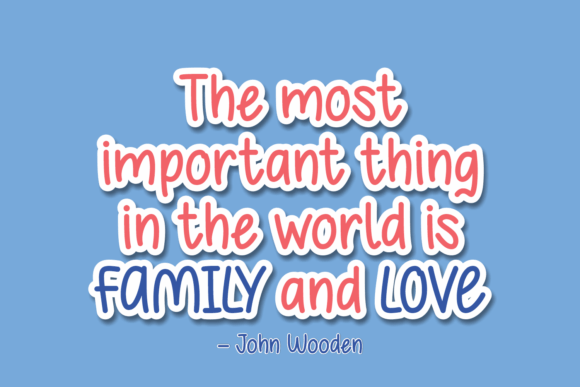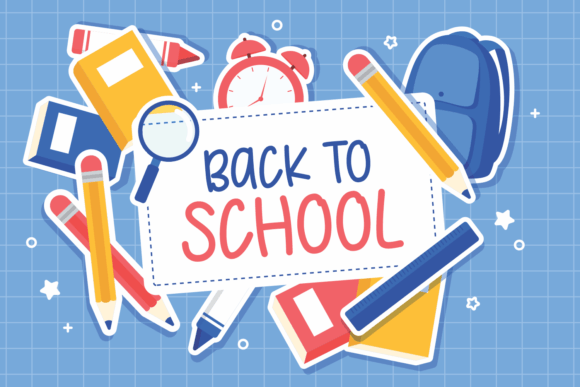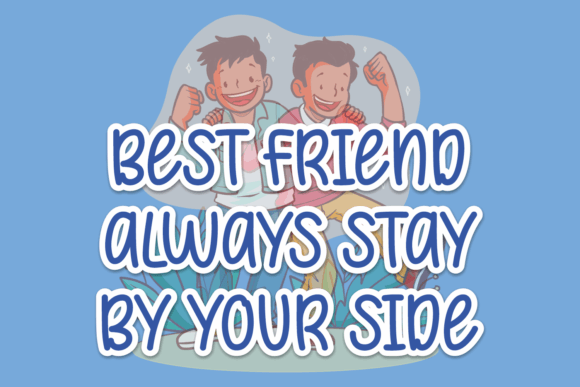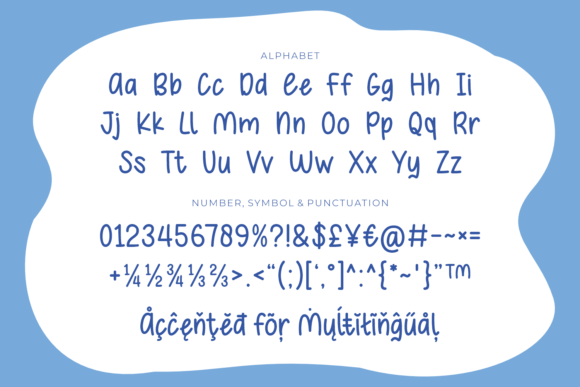
Introducing Family Creative Font: The Perfect Blend of Minimalism and Handwritten Charm
In the world of typography, fonts play a crucial role in conveying the tone and personality of a brand, product, or message. For designers and crafters, finding the right font can make all the difference in creating visually appealing and effective designs. If you’re on the hunt for a font that exudes simplicity, modernity, and a touch of handwriting charm, look no further than Family Creative Font.
What is Family Creative Font?
Family Creative is a minimalist handwritten font that boasts clean, simple lines and a casual, modern feel. Its design strikes the perfect balance between simplicity and the natural flow of handwriting, making it an excellent choice for a wide range of projects. Whether you’re working on branding, social media graphics, invitations, logos, or everyday print materials, Family Creative Font is sure to impress.
Key Characteristics of Family Creative Font
- Minimalist Design: Family Creative Font features a clean and minimalist design that ensures clarity and readability, even at smaller font sizes.
- Handwritten Charm: Despite its minimalist approach, the font retains the natural flow and charm of handwriting, adding a personal touch to your designs.
- Modern Aesthetic: The font’s modern, clean aesthetic makes it suitable for both professional and creative contexts, allowing you to convey a sense of sophistication and style.
- Versatility: Family Creative Font is incredibly versatile and can be used across various projects, from digital applications to print materials.
Why Choose Family Creative Font?
There are several reasons why Family Creative Font stands out from the crowd:
- Ease of Readability: The font’s simple and clean design ensures that your text is easy to read, making it perfect for body text, headings, and titles.
- Unique Personality: Family Creative Font adds a unique personality to your designs, setting them apart from more traditional and generic fonts.
- Time-Saving: With its minimalist design, Family Creative Font allows you to create professional-looking designs quickly and efficiently, saving you time and effort.
How to Use Family Creative Font in Your Designs
Family Creative Font is an incredibly versatile font that can be used in a variety of design projects:
- Branding: Use Family Creative Font to create a unique and memorable brand identity that reflects your values and personality.
- Social Media Graphics: Add a personal touch to your social media graphics, such as Instagram posts, Facebook headers, and Twitter graphics.
- Invitations: Create beautiful and elegant invitations for special occasions, such as weddings, birthdays, and baby showers.
- Logos: Use Family Creative Font to create a modern and stylish logo that represents your brand or business.
- Print Materials: Add a touch of elegance to your everyday print materials, such as brochures, flyers, and business cards.
Family Creative Font is an excellent choice for designers and crafters looking for a font that combines minimalism with the charm of handwriting. Its clean, simple lines, modern aesthetic, and versatility make it perfect for a wide range of projects. Whether you’re working on branding, social media graphics, invitations, logos, or print materials, Family Creative Font is sure to elevate your designs and add a unique touch of personality.